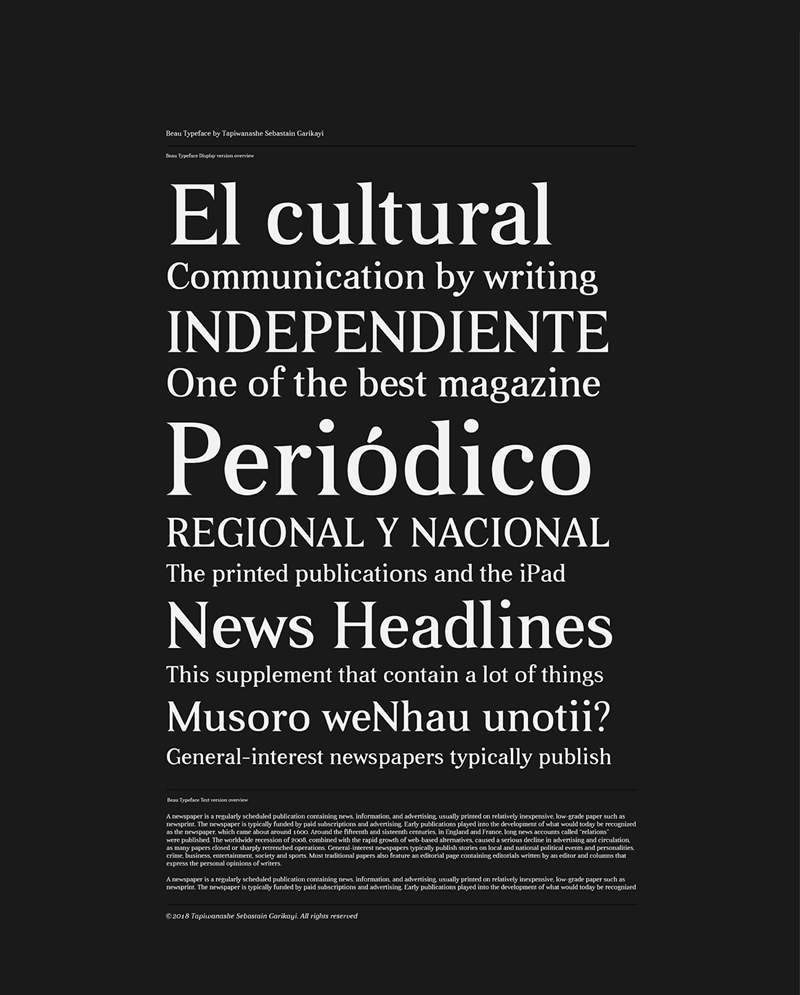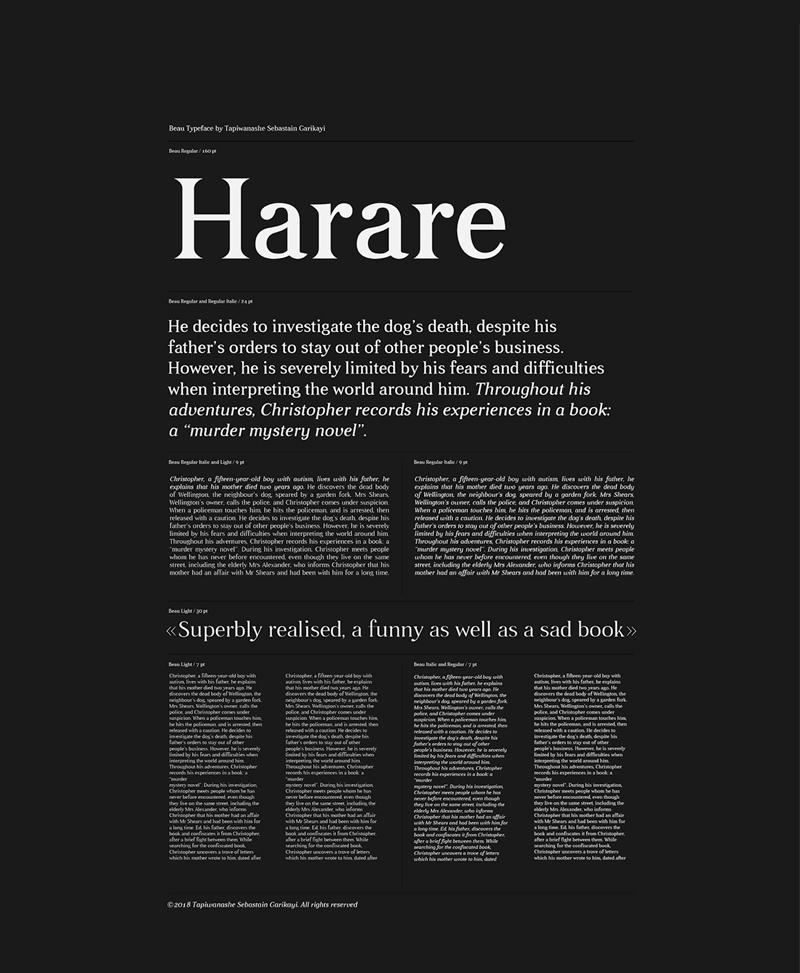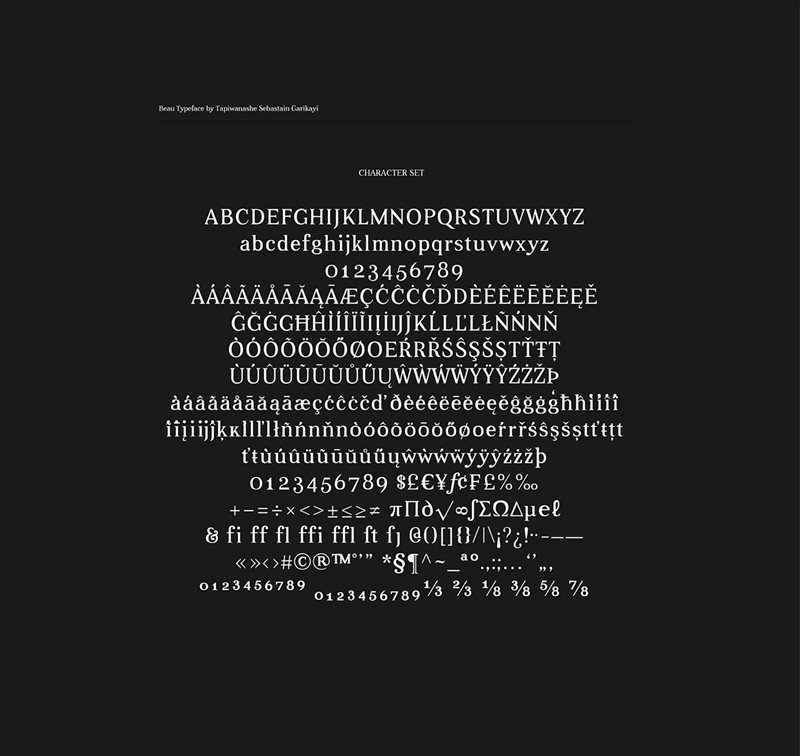
Beau Free Font
Beau is suited for headlines and short texts, the subtle modulation and moderate contrast in the regular and light weights makes it perfectly readable in extended text settings.